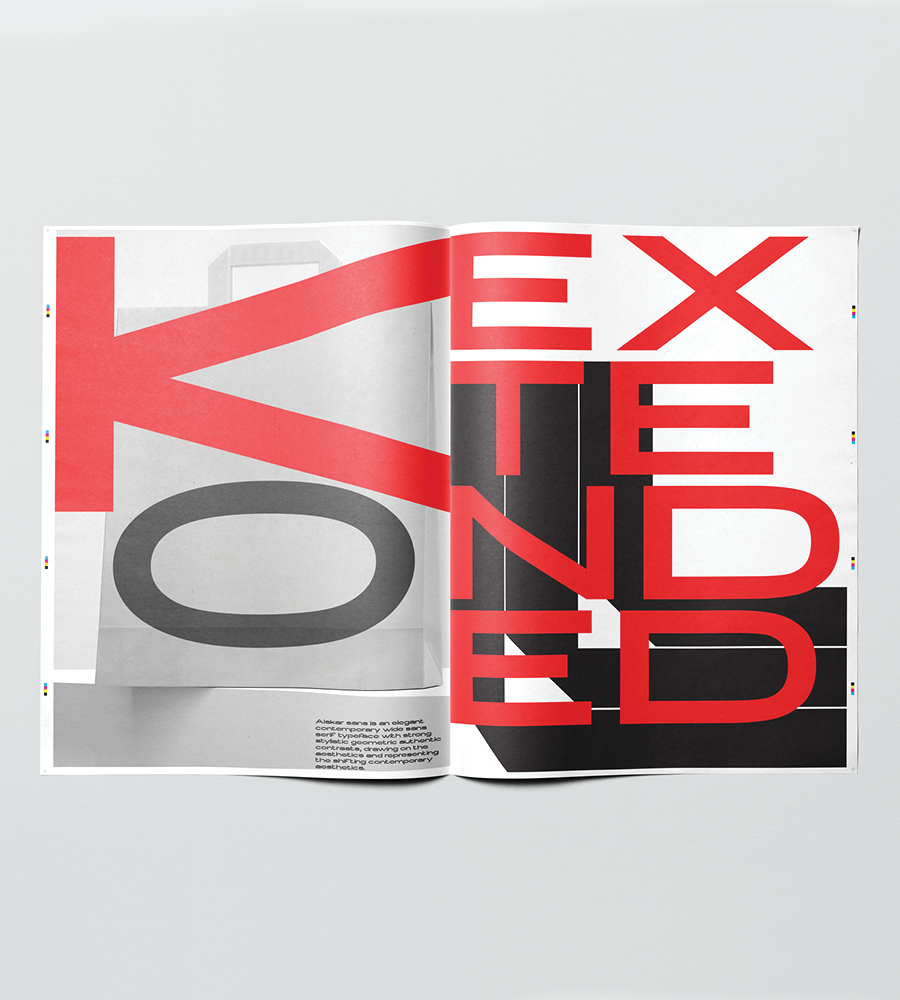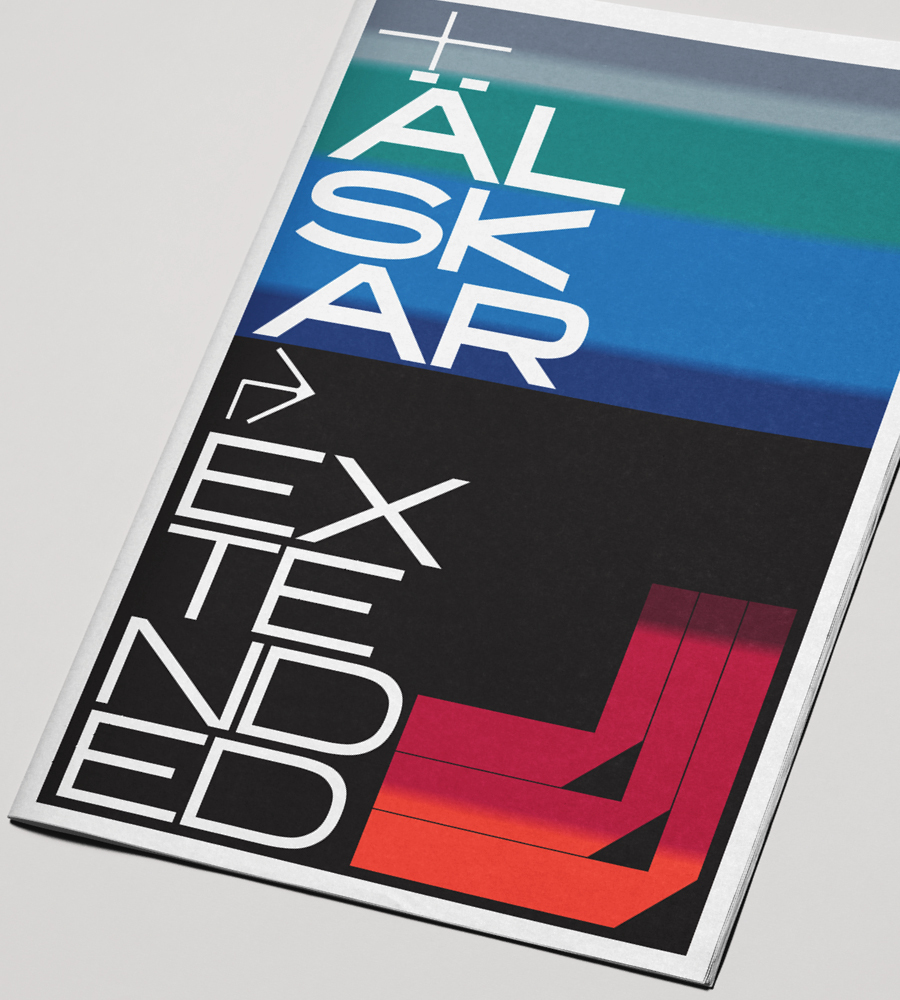
Alskar sans is an elegant contemporary wide sans serif typeface with strong stylistic geometric contrasts. The distinctive stance gives the right visual consistency for branding and communications. Alskar sans is perfectly suited for headlines, large-format prints, brand identities, social media, advertising, editorial design, posters, magazines, logos, headings, body copy, digital and more.
Alskar Extended supports up to 80 different languages such as Spanish, English, Portuguese, German, French, Turkish, Italian, Polish, Kurdish (Latin), Azerbaijani (Latin), Romanian, Dutch, Hungarian, Kazakh (Latin), Serbian (Latin), Czech, Swedish, Belarusian (Latin), Croatian, Finnish, Slovak, Danish, Lithuanian, Latvian, Slovenian, Irish, Estonian, Basque, Luxembourgian, and Icelandic in Latin and other scripts.